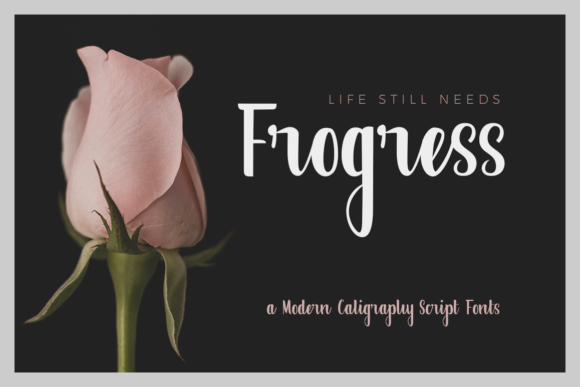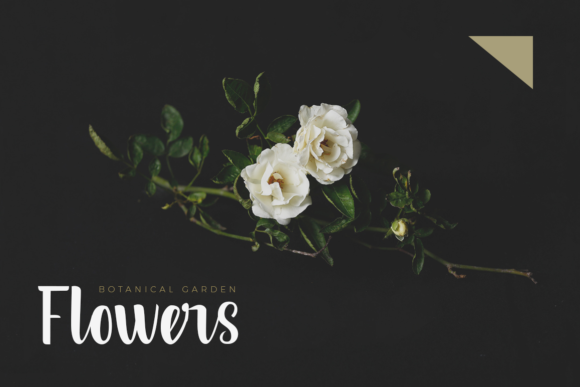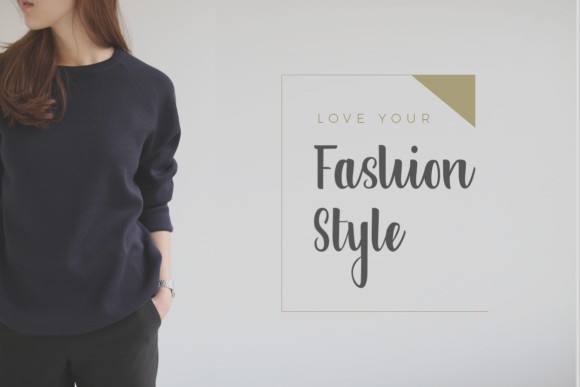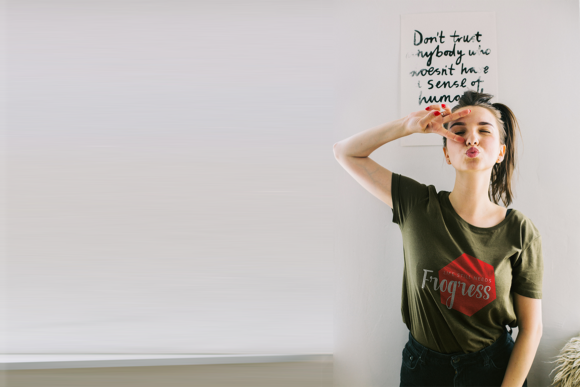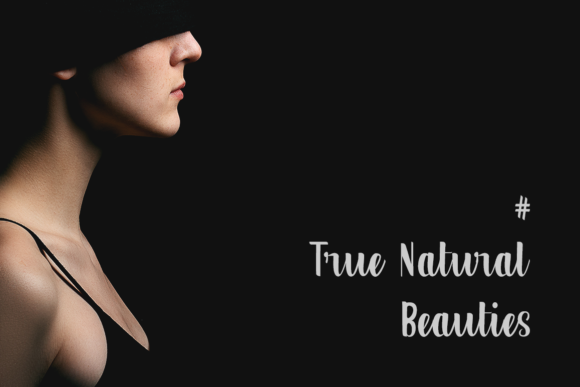
Frogress Font
About Frogress Font
Frogress is a fresh modern calligraphy style font. It has a classical touch, perfect for creating neat designs with a personal touch.